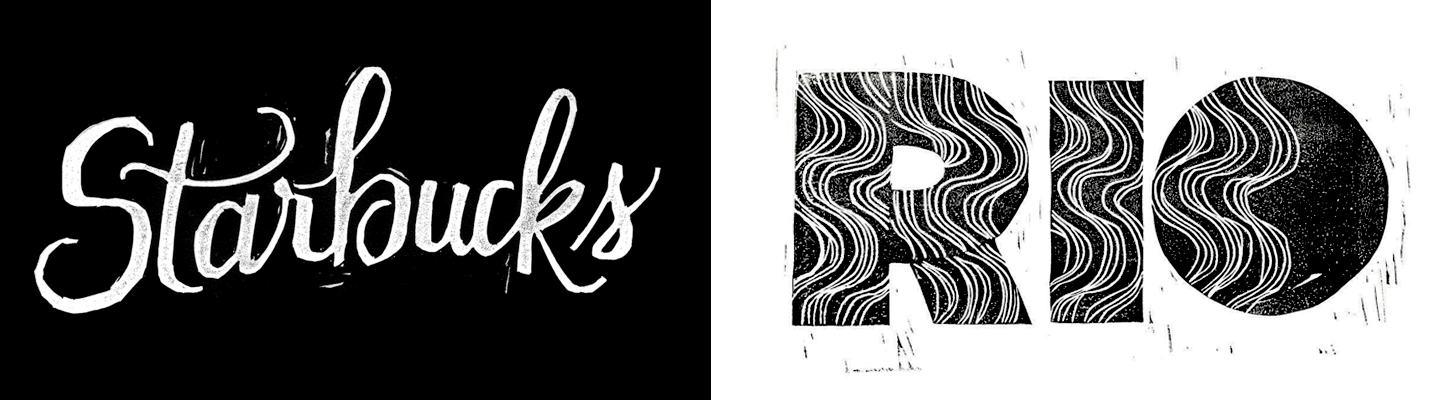
Remember December: My Year Learning How to Overcome Imposter Syndrome
Some examples of playing with different tools.
Despite our political turmoil this year I was determined to stay focused on positivity and ultimately, the things I could control. A long season of learning more about lettering and type design has been one of my professional goals for some time now. I’ve always had an interest/love affair with letters but often find myself in a state of imposter syndrome with it. I focused on exploration, finding communities where I felt comfortable creating work and asking questions, and more importantly, I wanted to keep it relatively casual. I didn’t want to go back to this idea of not knowing what I was doing and feeling like it didn’t count as real lettering or type design.
I’m fortunate enough to work for a company that offers five days of creative renewal, and when I looked at the offerings, I jumped at the opportunity to take a couple of lettering workshops and a Type Design workshop co-lead by a fellow Alphabette, Lila Symons.
Linocut Lettering
When I first started brainstorming header ideas, I knew I wanted to execute it by hand. There is something comforting in the unpredictability and uniqueness of a linocut print. During my time at Starbucks Global Creative, I had the opportunity to explore linocut block printing in quite a bit of my work. What interested me was mixing lettering and linocuts, much like letterpress.
Samples of my work from my time at Starbucks Global Creative.